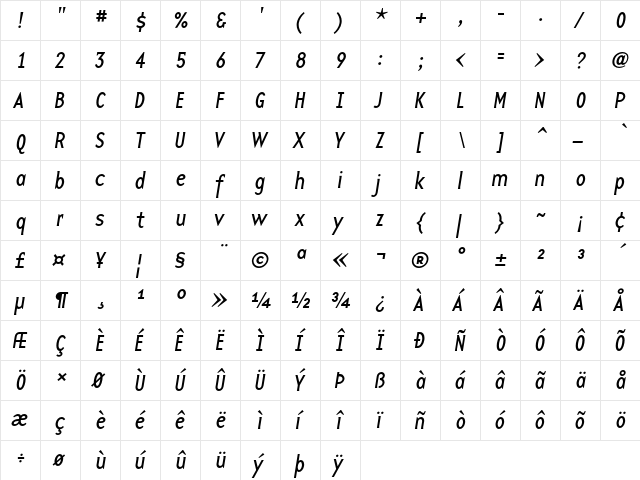
BaseTwelveSans Italic Font Preview
BaseTwelveSans Italic
BaseTwelveSans Italic Font Details
Design Context for BaseTwelveSans Typeface
BaseTwelveSans takes a measured approach to typography — its balanced proportions and neutral character make it a reliable workhorse for both digital and print work. The dynamic lean of this cut emphasises speed and emphasis in any layout.
Pro Tip: Try BaseTwelveSans for annotation and caption copy alongside an upright companion — the contrast in angle creates a dynamic but ordered typographic system.